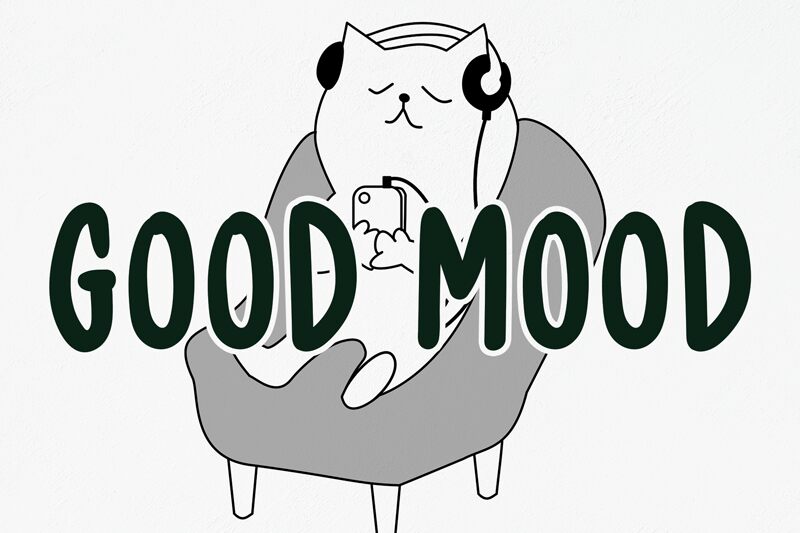
Good Mood
the latest style letters are perfect for wall displays, wedding invitations, social media post logos,
advertisements, product packaging, product designs, labels, photography, watermarks, invitations, stationery,
and any project that requires taste handwriting.